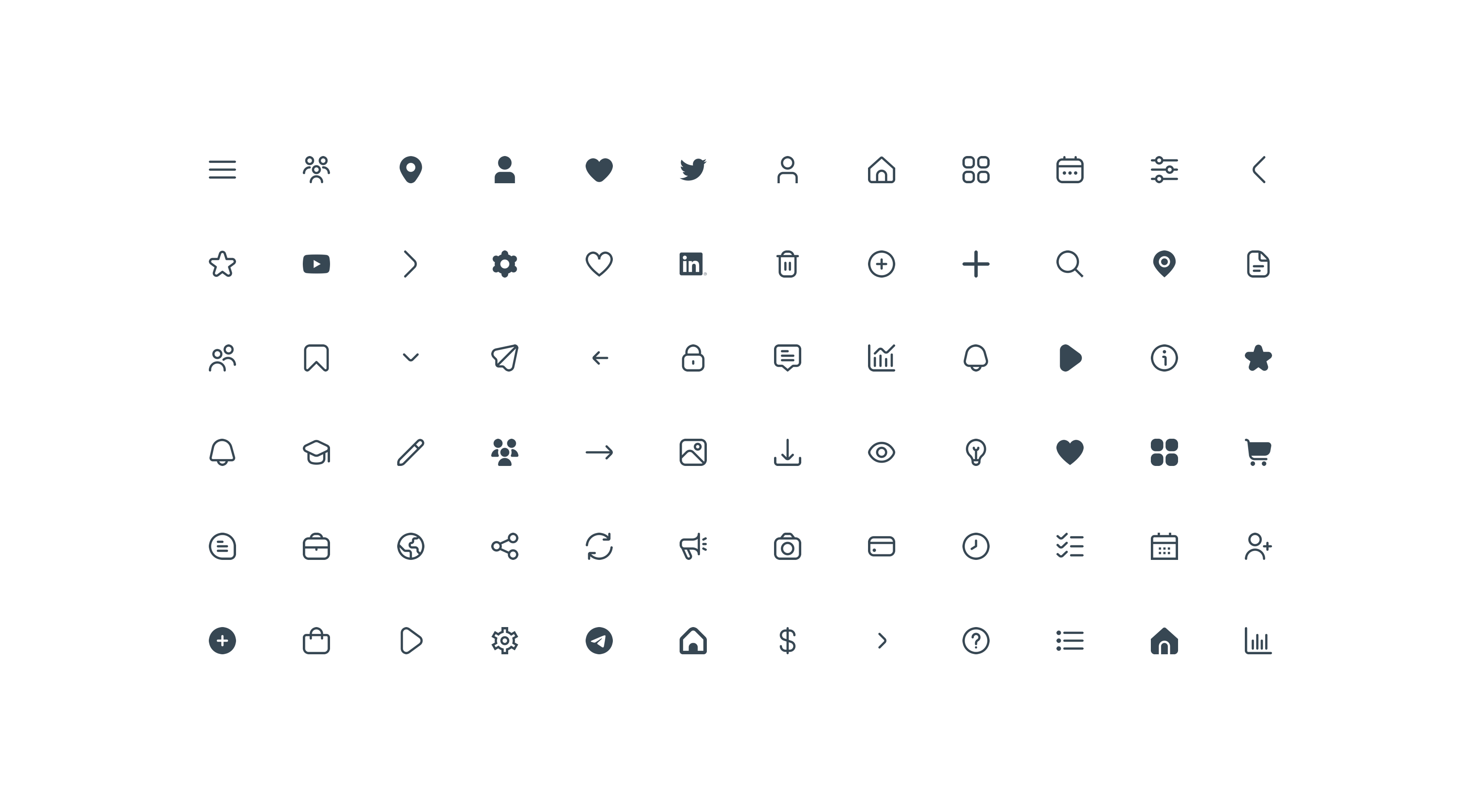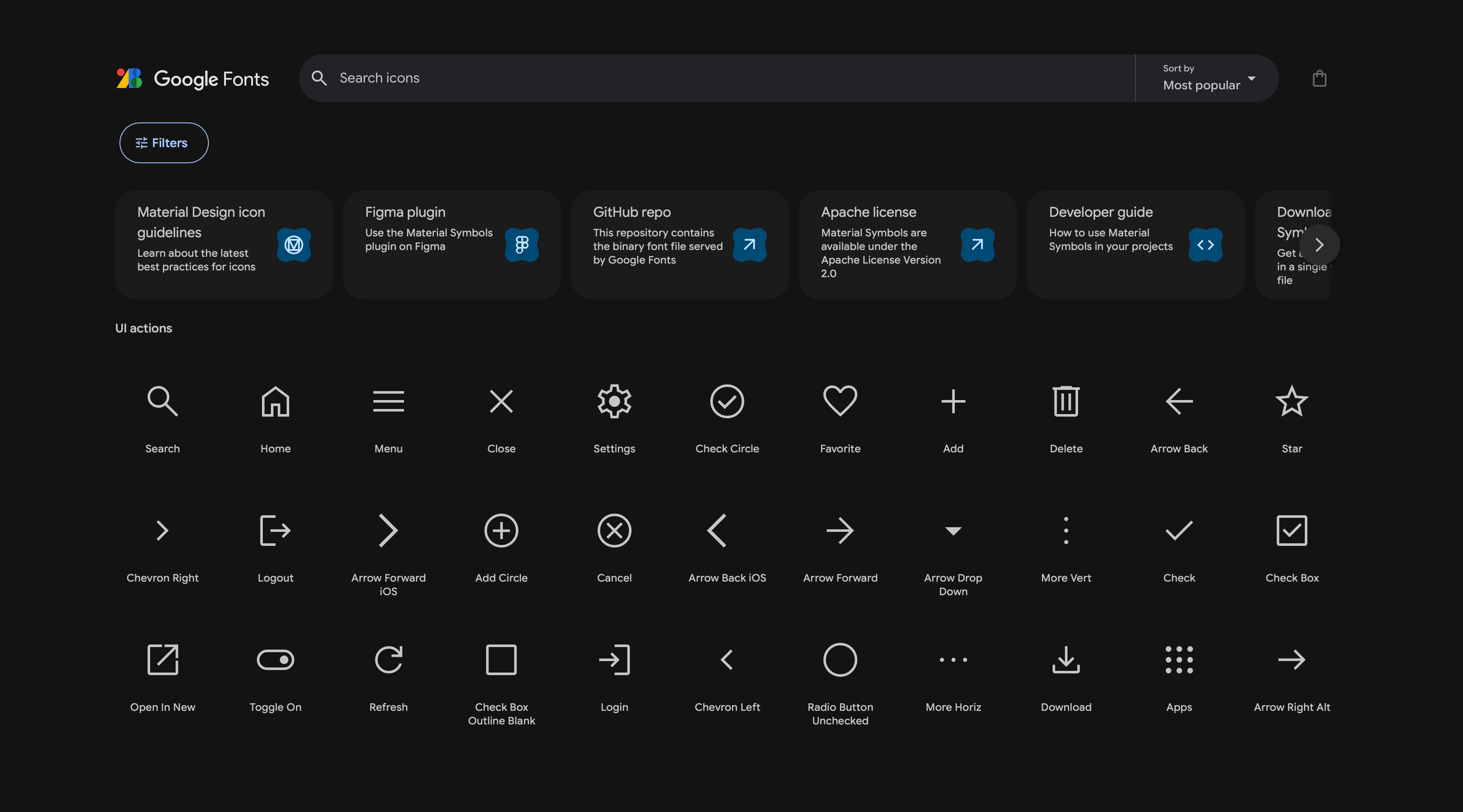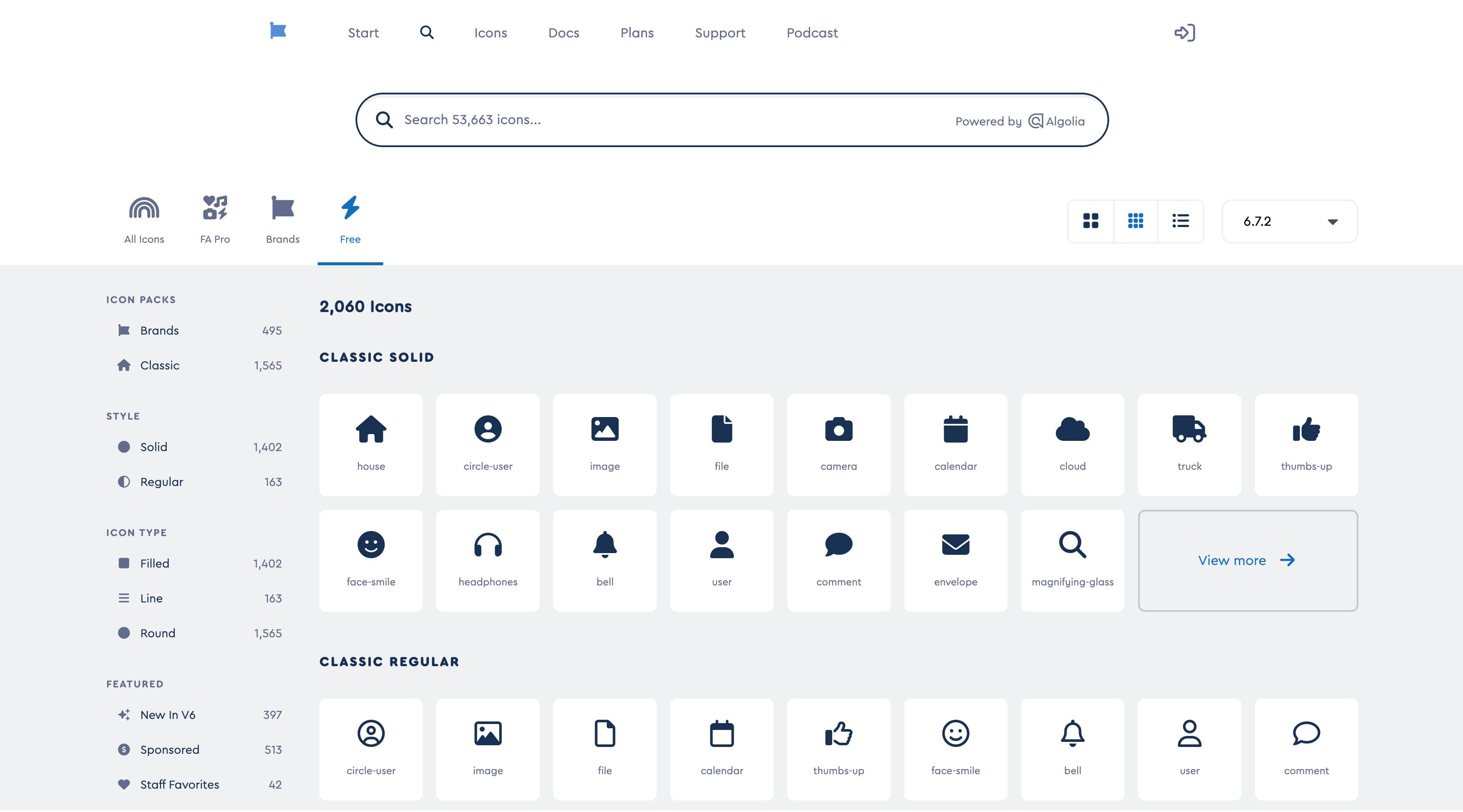
Looking to add icons to your web design? Iconfonts, let you add scalable, lightweight icons in a snap. Learn what icon fonts are and how to use them for web design.
Icon fonts: what, why, and how
Icon fonts have transformed web design by offering a scalable, lightweight, and flexible way to integrate symbols into web pages. Instead of using image-based icons, these fonts replace characters with pictorial glyphs that can be styled easily via CSS.
For designers and developers, understanding what icon fonts are, their benefits, and how they compare to SVG icons is key to optimising web performance and user experience.
What are icon fonts?
Icon fonts are specialised font files containing symbols instead of letters and numbers. Typically found in web-friendly formats like WOFF and EOT, they are compressed for performance and widely supported across browsers.
By applying icon fonts to HTML elements via class names, developers can modify them just like text using CSS, making UI customisation seamless.
Benefits of icon fonts
- Scalability: Icons remain sharp at any size, making them ideal for responsive web design.
- Performance efficiency: A single HTTP request loads an entire set of icons, reducing multiple requests for separate images and improving page speed.
- Easy customisation: Modify icons directly with CSS (change colours, sizes, and animations) without editing source files.
- Cross-browser compatibility: Supported by most modern browsers, ensuring consistent rendering.
- Lightweight: Faster than individual image-based icons, improving mobile and desktop performance. By leveraging icon fonts, developers can create visually consistent and lightweight web interfaces effortlessly.
Icon fonts vs. SVG icons
Both icon fonts and SVG icons have their own advantages. Choosing the right one depends on your project’s performance needs, flexibility, and ease of integration.
Comparison of icon fonts and SVG icons
- Scalability: Icon fonts scale well but may blur at very large sizes, while SVG icons remain infinitely scalable.
- Customisation: Icon fonts are easy to style using CSS, whereas SVG icons offer more flexibility for advanced styling.
- Performance: Icon fonts require just one file for multiple icons, reducing HTTP requests, whereas SVGs often need multiple files or inline embedding.
- Integration: Icon fonts are simple to implement with CSS classes, making them ideal for quick deployment, while SVGs may require additional setup, especially for larger sets.
- Best for: Icon fonts are great for fast-loading, simple icons, while SVG icons are best for detailed, scalable vector-based graphics.
Recommendation:
- Use Icon Fonts for fast-loading icons with minimal setup.
- Use SVG Icon for precise, highly customisable graphics that require complex styling.
Most Popular icon font libraries
Here are our top picks for popular icon font libraries:
Hugeicons
Hugeicons by Masum Parvej is a modern and beautiful icon font library trusted by over 150,000 users for its huge collection and performance-focused design. Created to empower both designers and developers, Hugeicons offers 37,000+ icons that are easy to integrate and customise.
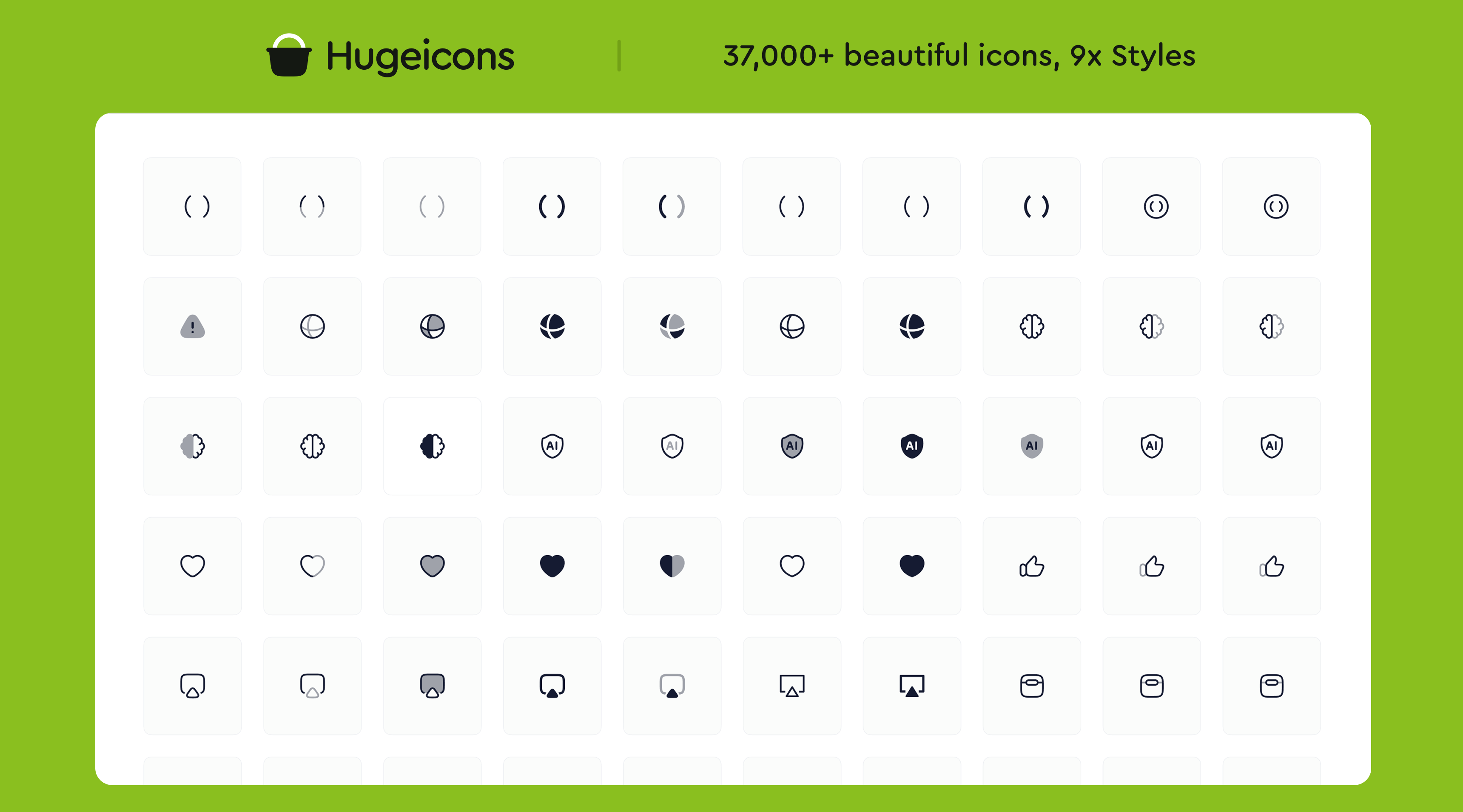
Key features of Hugeicons:
Fast & CDN hosted: Loads instantly for better performance using Cloudflare CDN for Pro users and Google Cloud CDN for Free users.
Lightweight: Includes only the styles you need, ensuring faster load times and optimised performance.
Easy to use icon font: Integrate icons with a single line of code, simplifying development and saving time.
Customisable: Change size, colour, and effects effortlessly with CSS.
Comprehensive icon set: Access 4,000+ icons for free and 37,000+ icons for Pro users across 9 styles, offering flexibility for diverse projects.
Unlimited usage: Both Free and Pro versions support unlimited usage, making it cost-effective for any scale of project.
AI-powered search: Advanced search tools help you find icons quickly and accurately.
Regular updates: New icons and features are added frequently based on user feedback.
With its focus on both quality and performance, Hugeicons is the perfect solution for projects that require reliable and high-quality icon fonts.
Bootstrap icons
Bootstrap Icons is the official icon font library for the popular Bootstrap framework, offering over 2,000 free and open-source icons. Designed to integrate seamlessly with Bootstrap components, this library provides a consistent and professional look for websites built on Bootstrap.
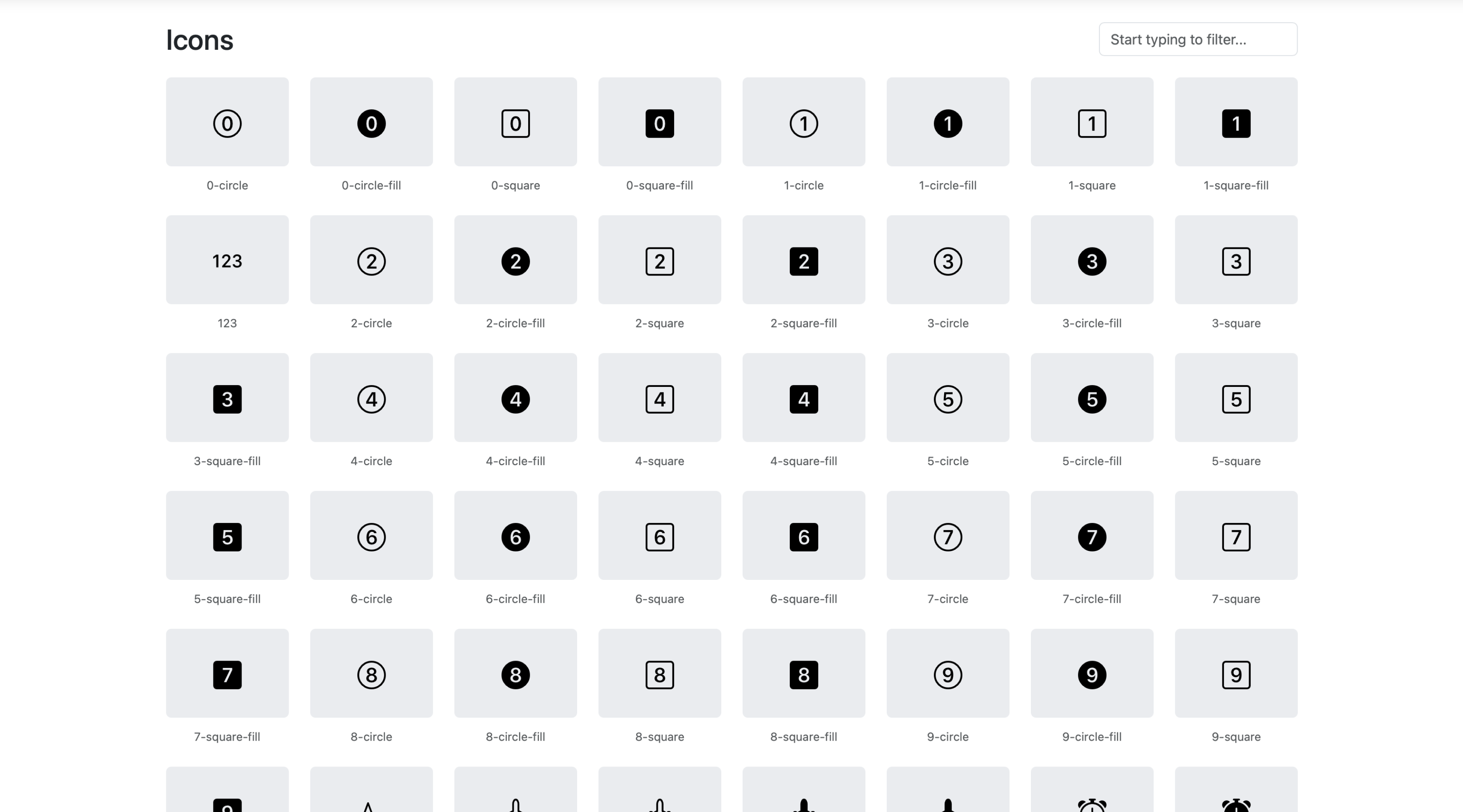
For a modern and high-quality icon font, Hugeicons is a top choice. It offers an extensive collection, seamless integration, and lightweight performance. Whether you’re building a personal project or a large-scale application, Hugeicons ensures clarity, speed, and ease of use. 🚀